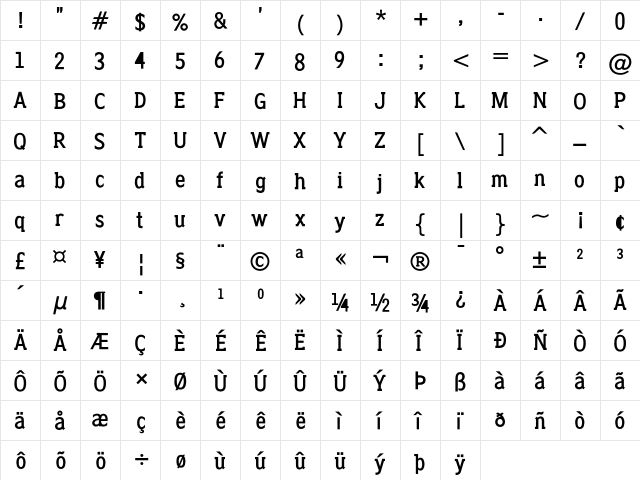
Clique-Serif Bold
Design Context for Clique-Serif Typeface
Clique-Serif carries the refined structure of traditional serif typography, with bracketed terminals and considered proportions that communicate credibility and craft. The heavy weight commands attention and anchors typographic hierarchies.
Pro Tip: Set Clique-Serif with slightly loose tracking in headlines to let each letterform's detail read clearly at display sizes.